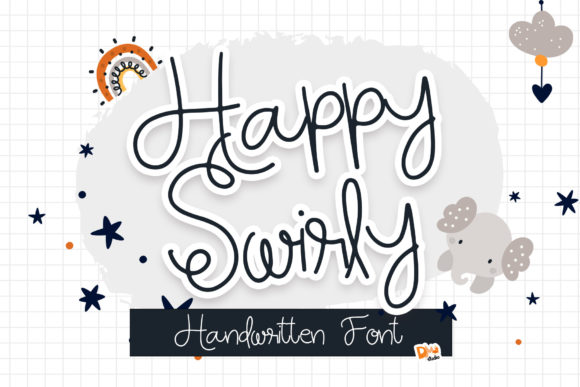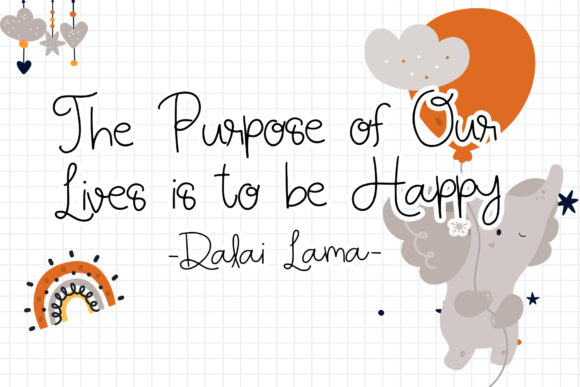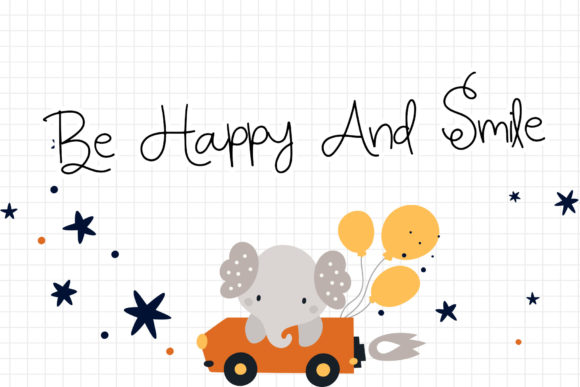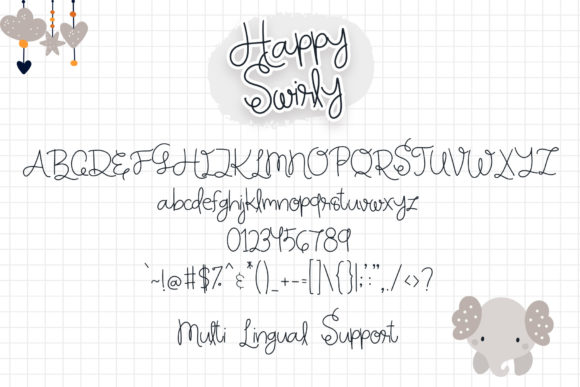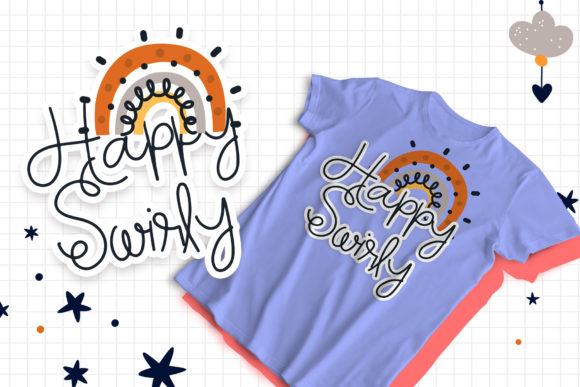
Happy Swirly Font
About Happy Swirly Font
Happy Swirly is a delicate and sweet handwritten font. This thin lettered and neat font will make each of your creations stand out. Use this font for your designs and explore its endless possibilities.